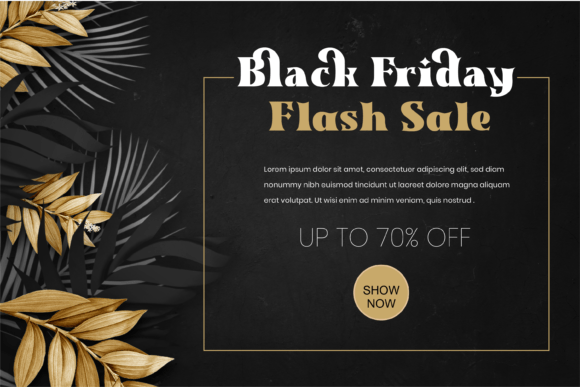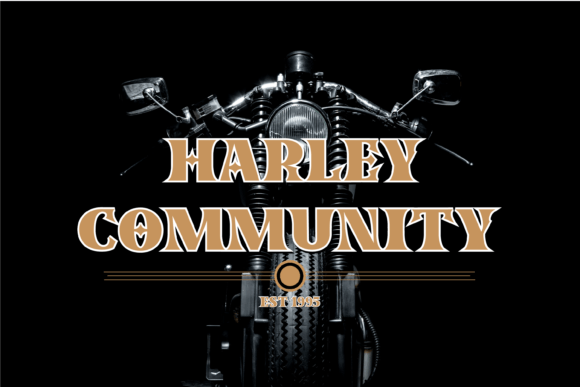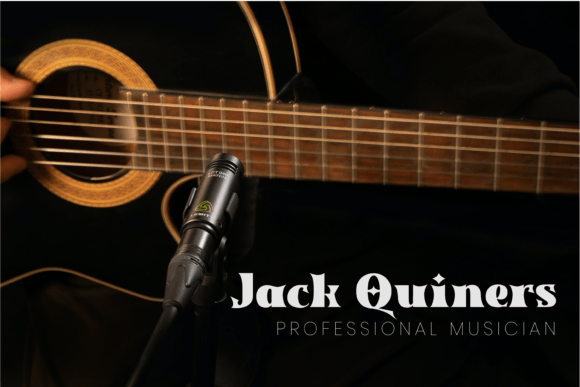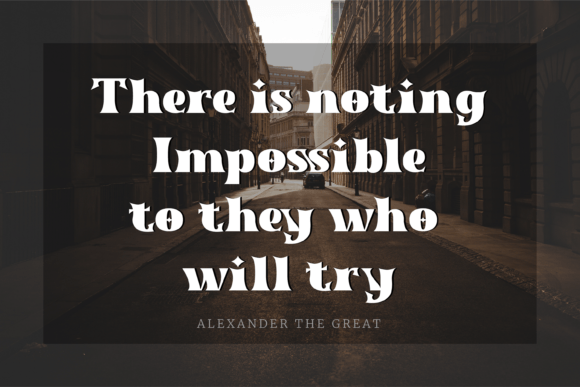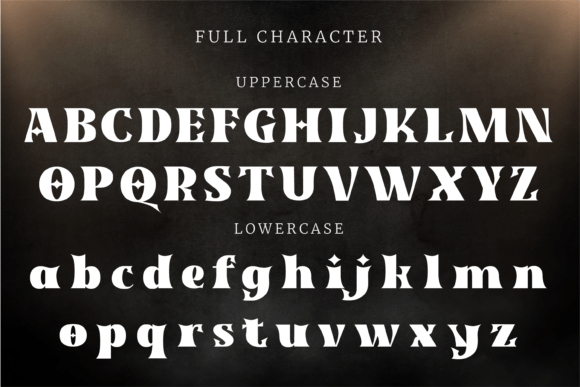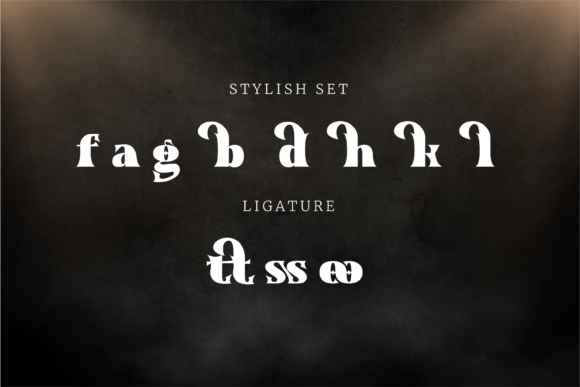
Introduction to Glooser Font
Introducing Glooser an elegant Serif Font Inspired by modern style combined with bold typography style.
It is best used for logotype, headings, covers, posters, logos, quotes, product packaging, headers, merchandise, social media, greeting cards, and many more .
Key Features of Glooser Font
Why Choose Glooser Font?